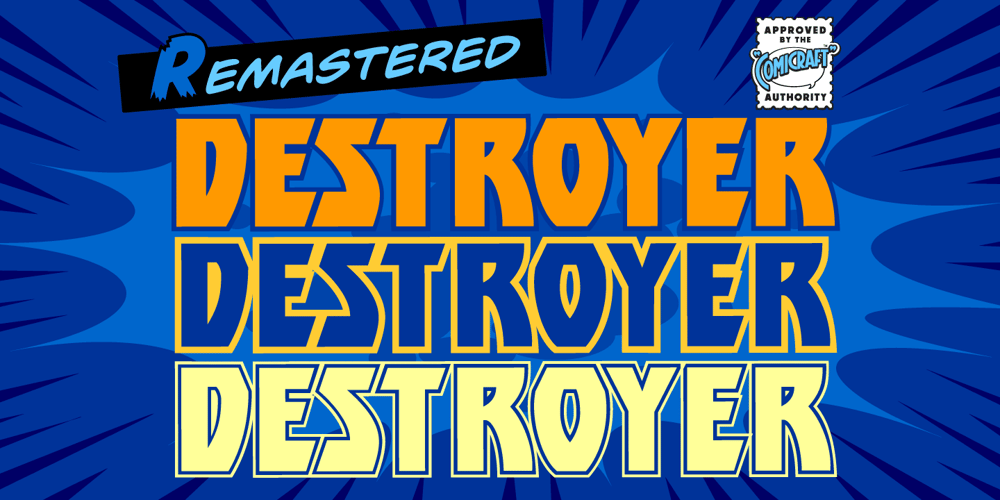
Destroyer Font Family was designed by John Roshell and published by Comicraft. Destroyer contains 3 styles and family package options. You wanted the best and you got the best – the hottest fonts in the world jumping off the pages of the hottest comic in the world – KISS PSYCHO CIRCUS. Now you can all journey into the void with these three matching fonts handcrafted by headbangin’ JG Roshell. Lick it up!